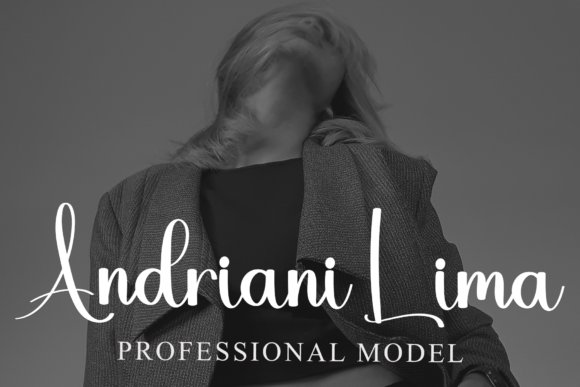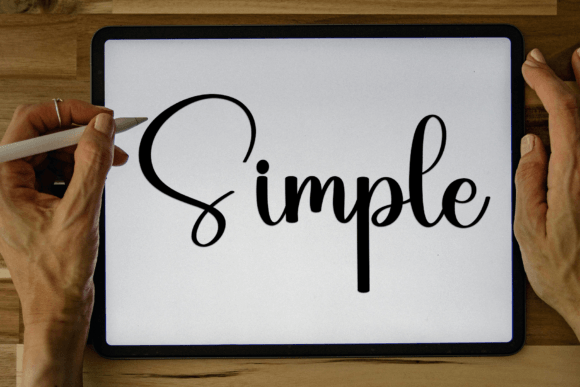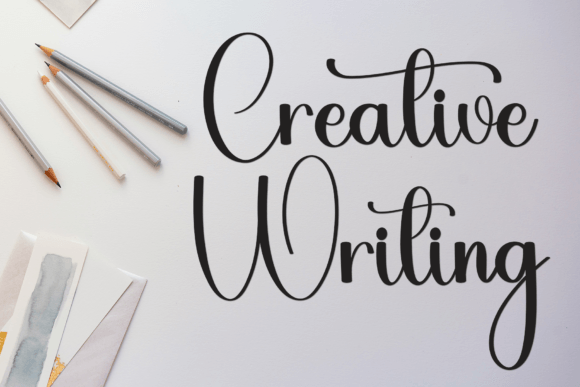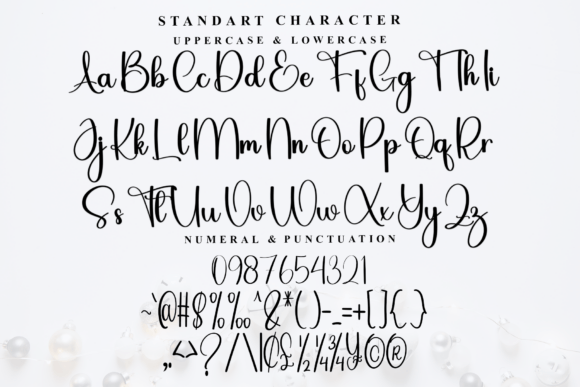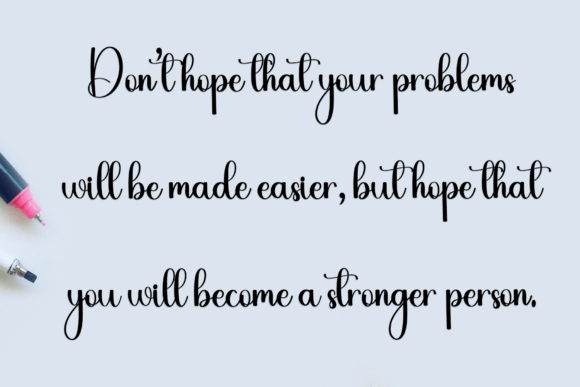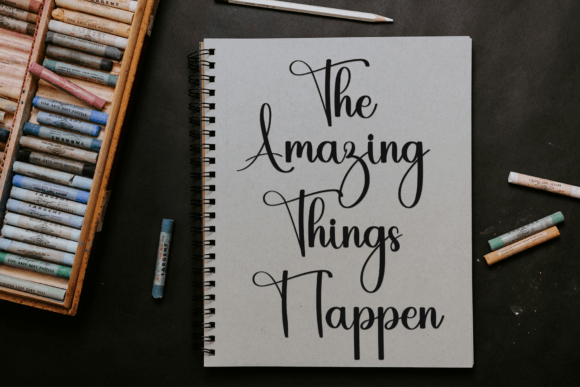
Discover the Elegance of Christina Font: A Trendy Handwritten Font for Your Design Projects
In the world of typography, fonts play a crucial role in conveying the tone and personality of a design. For designers and crafters looking for a font that exudes elegance and class, Christina Font is an excellent choice. This trendy handwritten font is inspired by timeless classic calligraphy, making it perfect for adding a touch of sophistication to any design project.
What Makes Christina Font Stand Out?
Christina Font is a contemporary handwritten font that boasts impeccable form and a unique character. Its design is rooted in traditional calligraphy, yet it has a modern twist that makes it perfect for today’s design landscape. The font’s flowing lines, elegant curves, and precise lettering make it a versatile choice for a wide range of design projects, from wedding invitations and branding materials to packaging and digital media.
Key Features of Christina Font
- Trendy and Contemporary: Christina Font has a fresh and modern look that will elevate your designs and make them stand out.
- Handwritten with a Personal Touch: The font’s handwritten style gives it a personal and human touch, making it perfect for designs that require a more approachable and friendly tone.
- Inspired by Classic Calligraphy: Christina Font’s roots in traditional calligraphy make it a great choice for designers looking to add a touch of elegance and sophistication to their work.
- Impeccable Form: The font’s precise lettering and flowing lines ensure that it is easy to read and looks great in a variety of sizes and applications.
Uses for Christina Font
Christina Font is a versatile typeface that can be used in a wide range of design projects, including:
- Wedding Invitations and Stationery: The font’s elegant and sophisticated style makes it perfect for wedding invitations, save-the-date cards, and other stationery.
- Branding and Packaging: Christina Font is a great choice for branding materials, such as logos, business cards, and packaging, where a touch of elegance and sophistication is required.
- Digital Media: The font’s clean and precise lettering makes it easy to read on digital screens, making it perfect for use in social media graphics, website headers, and other digital media.
- Signage and Displays: Christina Font’s elegant style makes it a great choice for signage and displays, where a touch of sophistication and class is required.
Christina Font is a trendy handwritten font that is perfect for designers and crafters looking to add a touch of elegance and sophistication to their design projects. Its unique character, impeccable form, and contemporary style make it a versatile choice for a wide range of applications. Whether you’re working on a wedding invitation, branding materials, or digital media, Christina Font is a great choice for adding a touch of class and elegance to your designs.